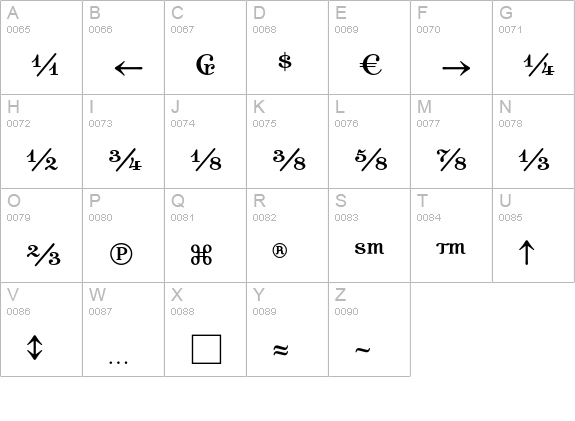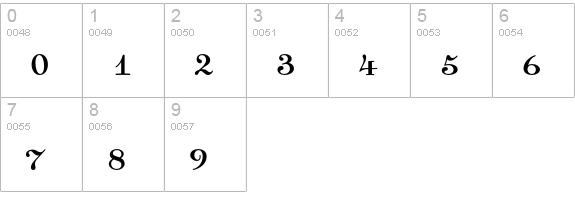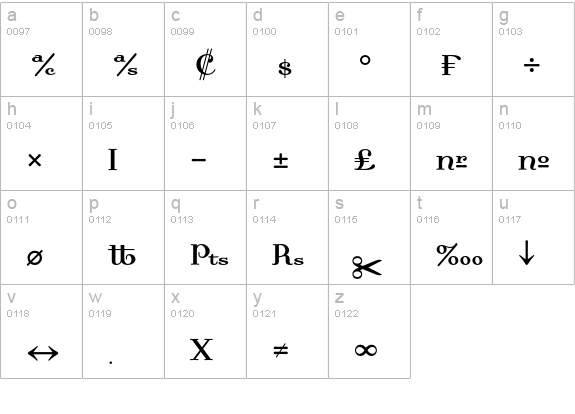
DallianceRomanFractions Font Details
DallianceRomanFractions font is a stunning and versatile typeface that effortlessly blends elegance and sophistication. With its beautifully crafted letterforms, this font exudes a timeless charm that is sure to captivate any audience. Featuring intricate details and delicate curves, DallianceRomanFractions font adds a touch of refinement to any design project. Whether you're creating a logo, designing a website, or crafting a striking headline, this font is sure to make a lasting impression. One of the standout features of DallianceRomanFractions font is its ability to seamlessly incorporate fractions. With its specially designed fraction glyphs, this font allows for the seamless integration of numerical values, making it ideal for any project that requires precise and professional typography. But what truly sets DallianceRomanFractions font apart is its accessibility. Not only does it boast exceptional design qualities, but it is also available for free download at FontsMarket.com. This means that designers, creatives, and enthusiasts alike can easily access this remarkable font without any cost. So why wait? Elevate your designs to new heights with DallianceRomanFractions font. Download it for free at FontsMarket.com and experience the perfect blend of elegance, versatility, and affordability.